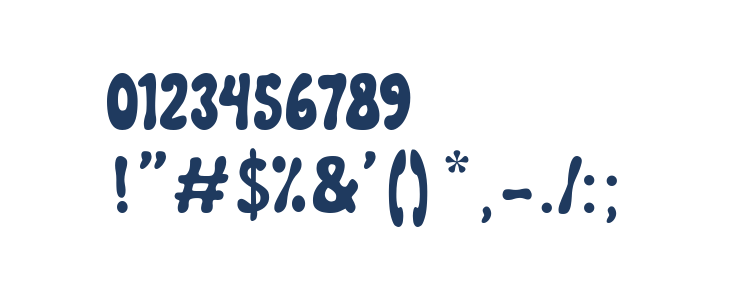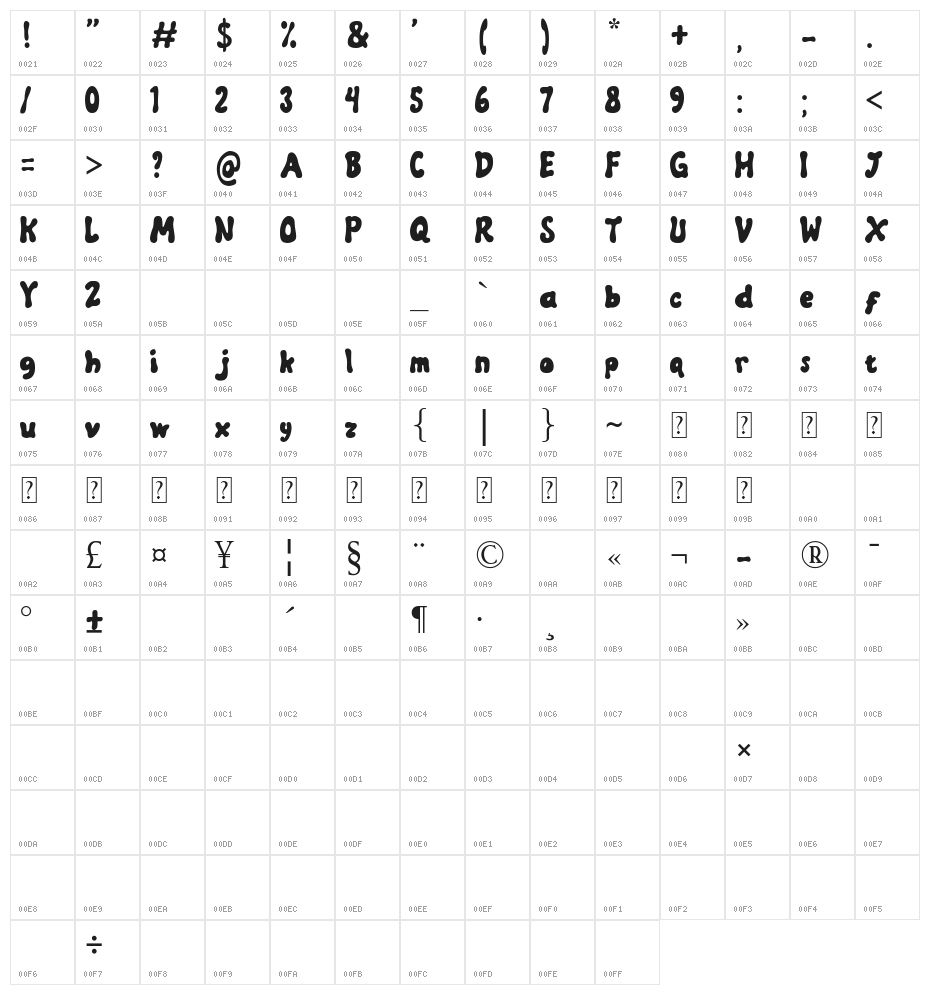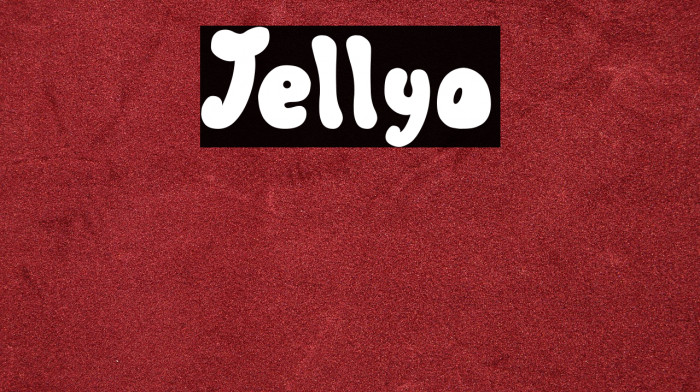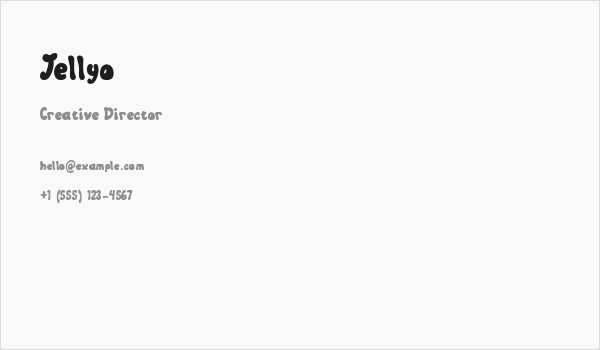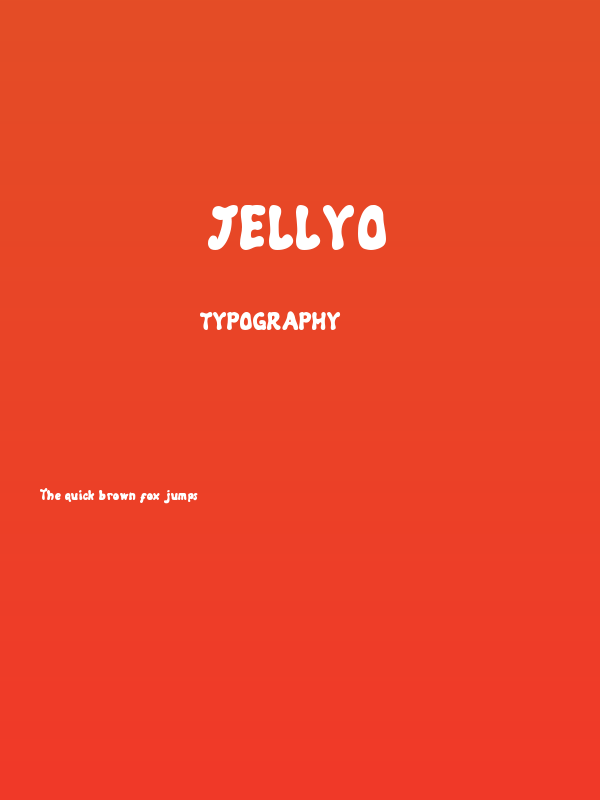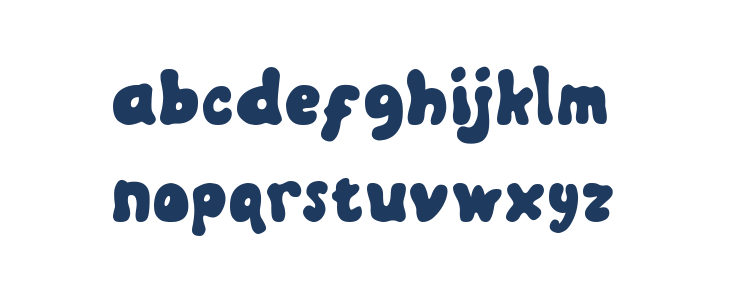
Jellyo Font
Jellyo Description
This playful and bold font features rounded, bubbly characters that convey a sense of fun and whimsy. The letters are thick and have a soft, almost squishy appearance, reminiscent of jelly or marshmallows. Each character maintains a consistent weight, contributing to a cohesive and harmonious look. The font's unique style makes it stand out, with its exaggerated curves and smooth edges. It includes a full set of uppercase and lowercase letters, numbers, and a variety of special characters, ensuring versatility for different design needs. The overall aesthetic is casual and friendly, making it suitable for projects that aim to be approachable and engaging.